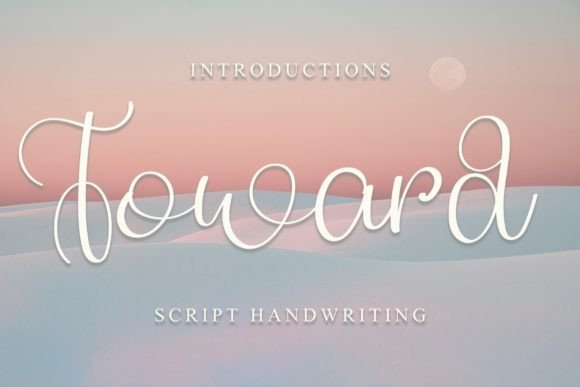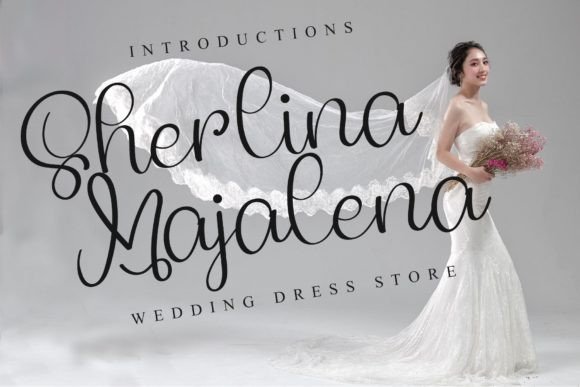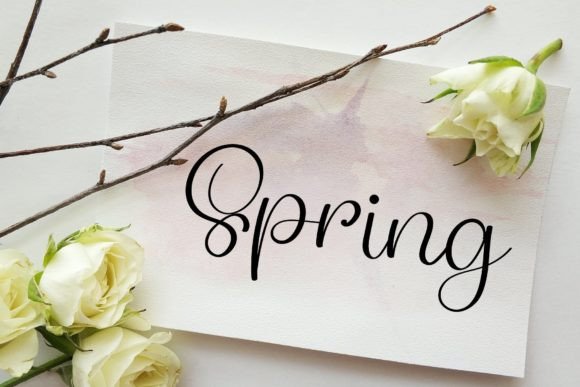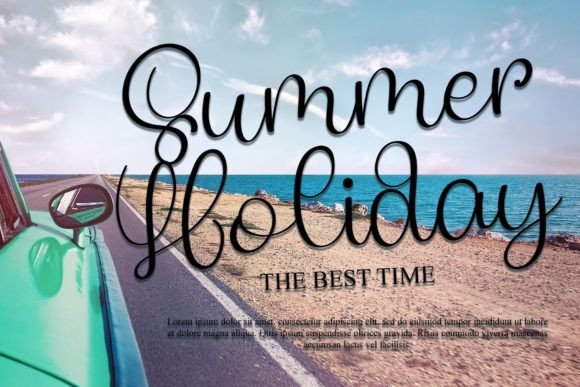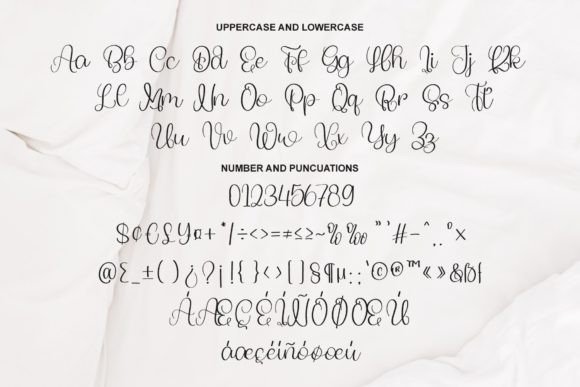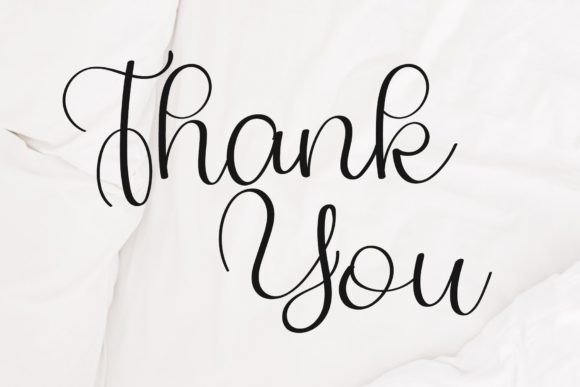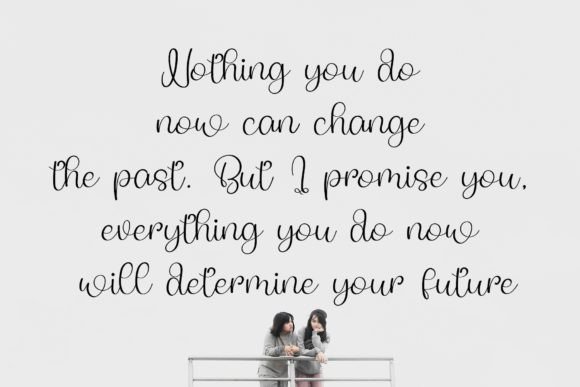
Toward Font
About Toward Font
“Toward” is described as a wonderful and impactful handwritten script font that is particularly well-suited for wedding use. The font is characterized as sweet and is noted to include hearts to dot the i’s, adding a playful and romantic touch that aligns with the theme of a wedding celebration.
The term “handwritten script font” suggests that “Toward” has a personal and organic quality, resembling handwritten script. Such fonts often bring warmth and authenticity to designs, making them suitable for occasions like weddings where a personal touch is often desired.
The mention of “wonderful and impactful” implies that “Toward” is not just functional but also carries a certain visual weight and appeal. Fonts with impact can make a statement and capture attention, which is often desirable for important events like weddings.
The specific reference to hearts dotting the i’s is a charming detail that reinforces the romantic theme. This playful addition can add a whimsical and personalized touch to the font, making it suitable for wedding invitations, stationery, and other related materials.
In summary, “Toward” is introduced as a sweet, impactful, and handwritten script font designed with weddings in mind. The inclusion of hearts to dot the i’s adds a delightful detail that enhances its suitability for creating a fun and romantic atmosphere in wedding-related designs.